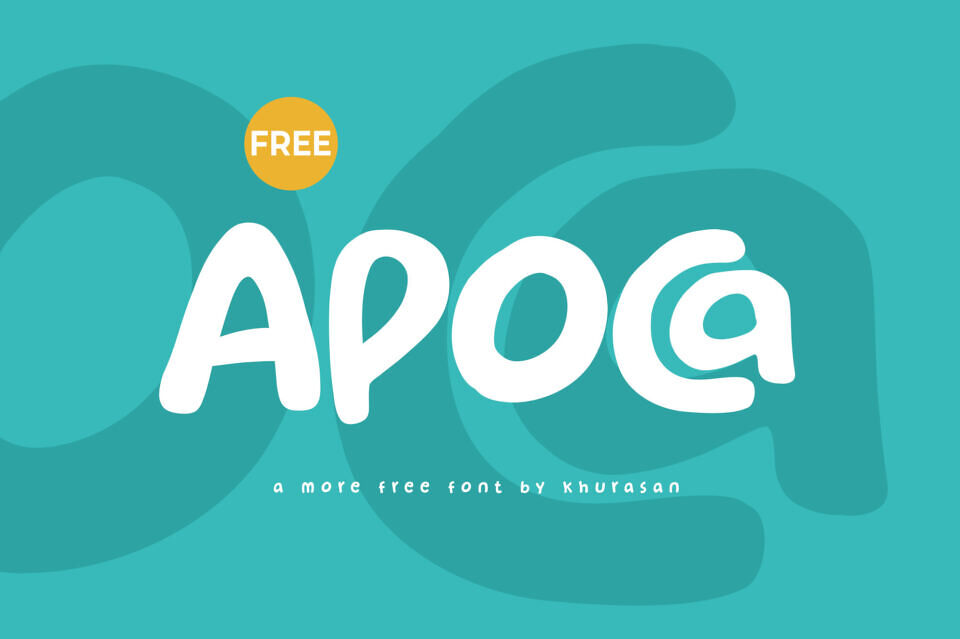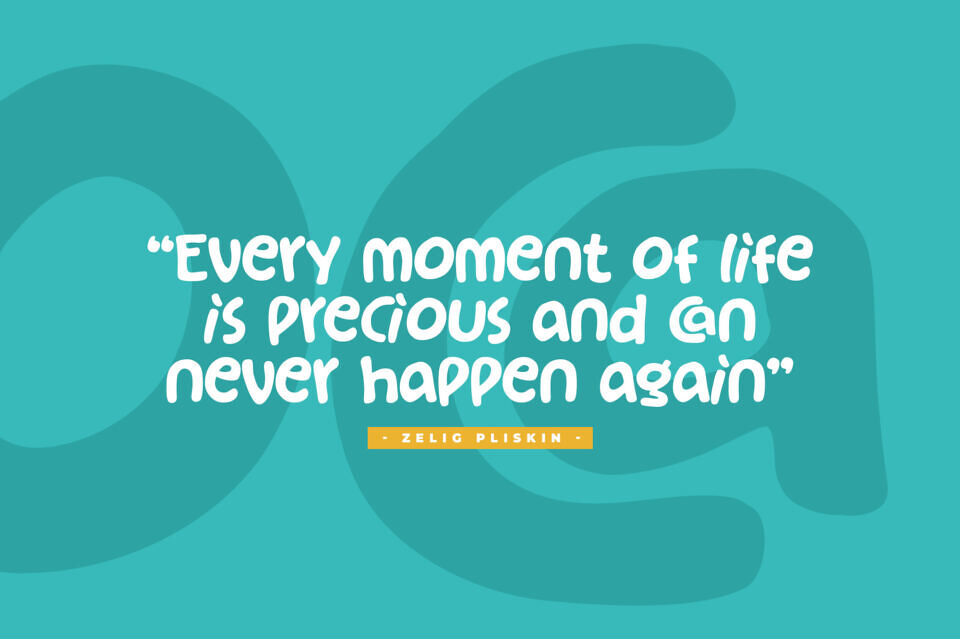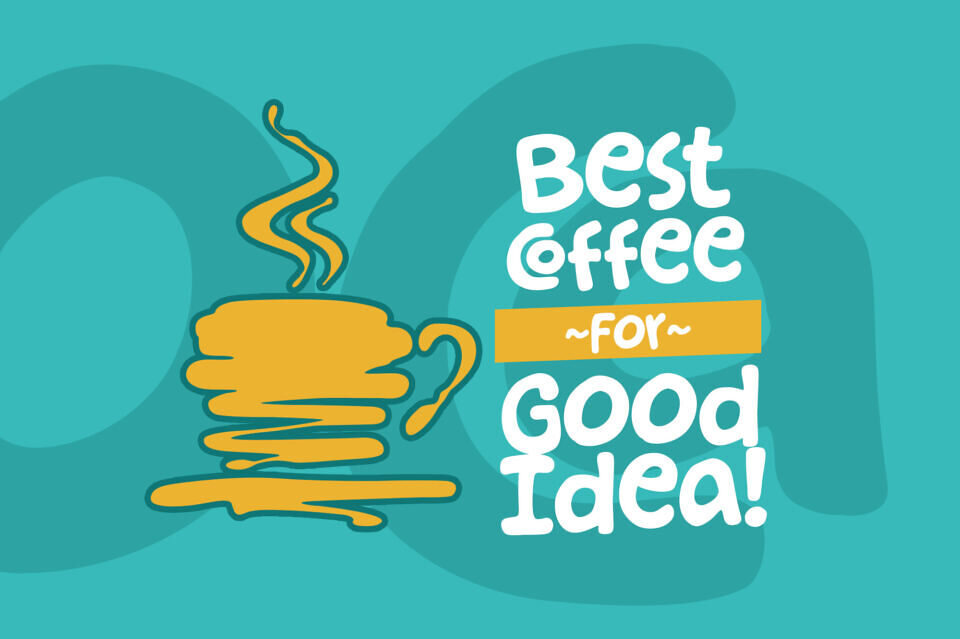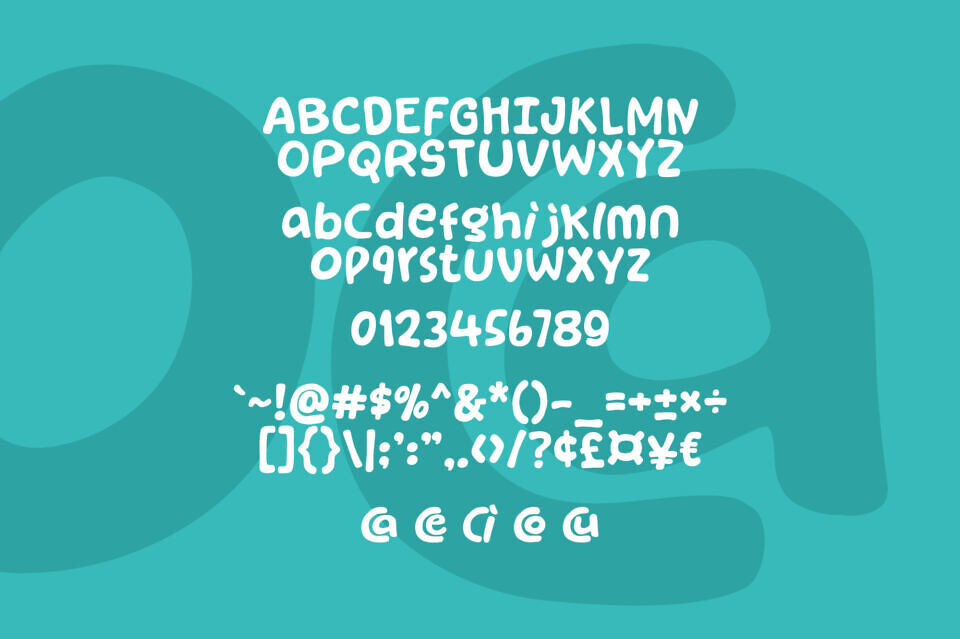
Apoca Font
Breathe an air of relaxed, casual energy into your layouts with Apoca, a wonderfully expressive display typeface. This modern handwritten font balances smooth, medium-weight marker strokes with playful, organic curves and mismatched mixed-case baseline heights that mimic natural handwriting on the fly.